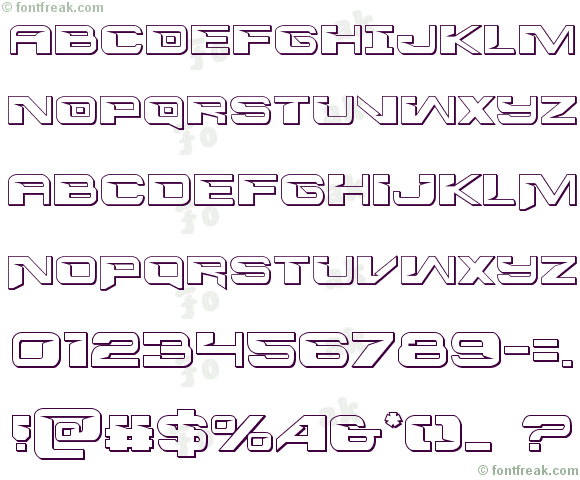
Interdiction 3D Regular
Interdiction 3D Regular, designed by Daniel Zadorozny, is a striking display font that falls within the decorative category. This font is characterized by its bold 3D effect, which gives it a prominent presence on any medium. The stroke weight is consistent, offering a solid structure that enhances legibility while maintaining an artistic flair. The design features sharp angles and a clean outline, contributing to its modern aesthetic. The spacing is well-balanced, allowing for easy readability even at larger sizes.
This font is ideal for various creative applications, such as eye-catching movie posters that demand attention, dynamic branding for tech startups, and striking signage that stands out in crowded environments. It can also be used effectively in promotional materials for events, adding a contemporary touch to flyers and brochures. Additionally, Interdiction 3D Regular works well for video game graphics, where a bold and adventurous style is often sought after.
The target audience for this font includes graphic designers looking for unique typefaces to elevate their projects, small business owners who want to create memorable branding, and content creators aiming to enhance visual storytelling. Its distinctive style makes it a versatile choice that can cater to various creative needs.